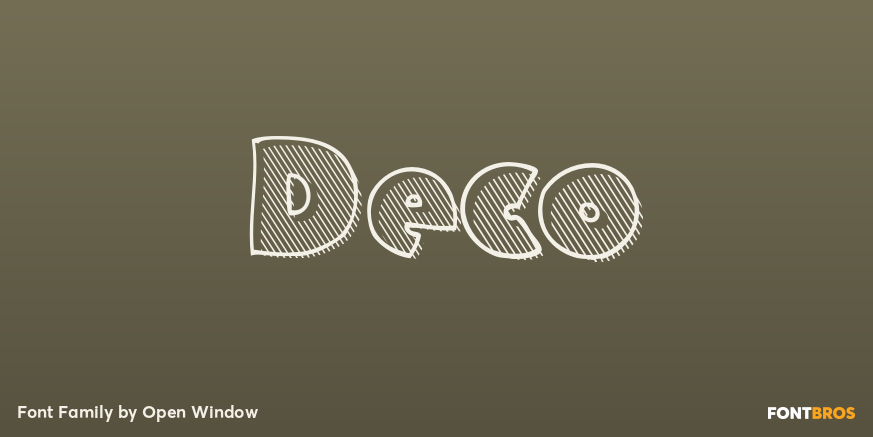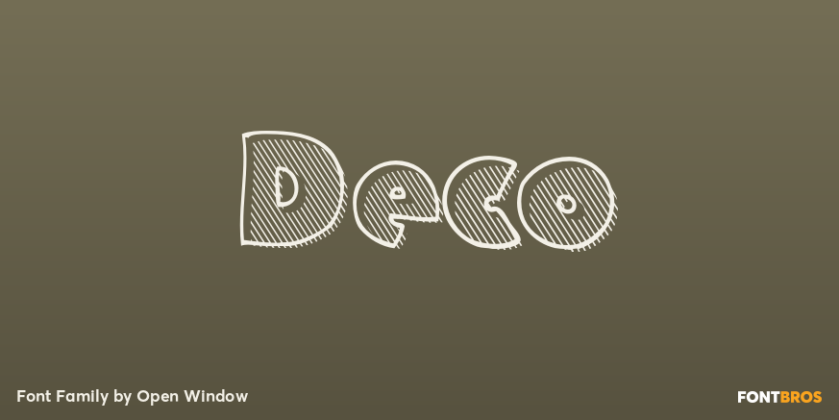
Deco
About Deco
Deco is an Art Deco inspired chunky font. It has the irregular charm of a hand drawn font but the elegance of a classic Art Deco style font. It has enough humor and grace to be used in a wide range of applications.